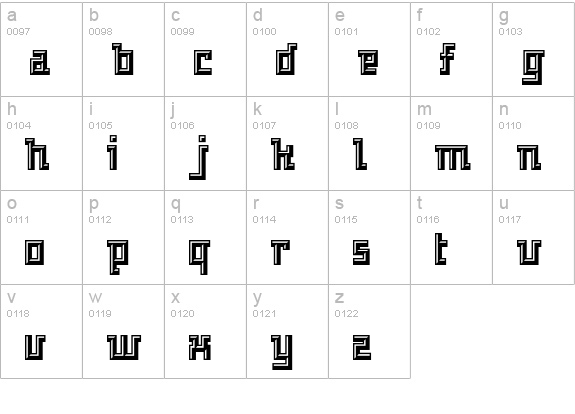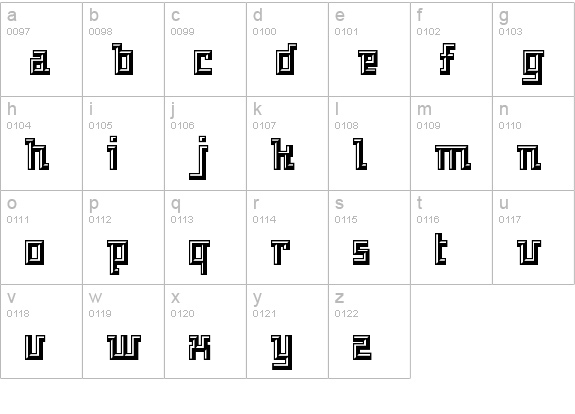
Archian-Plastic font is a modern and sleek typeface that exudes a futuristic and innovative vibe. With its clean lines and geometric shapes, this font is perfect for projects that require a contemporary and cutting-edge look. The unique blend of sharp angles and smooth curves gives Archian-Plastic font a distinct and eye-catching appeal. Best of all, Archian-Plastic font is available for free download at FontsMarket.com. This means you can easily access this stylish font and use it in your designs without any cost. Whether you're working on a logo, poster, or website, Archian-Plastic font will add a touch of sophistication and modernity to your project. Don't miss out on this fantastic opportunity to enhance your designs with the sleek and trendy Archian-Plastic font, available for free at FontsMarket.com.